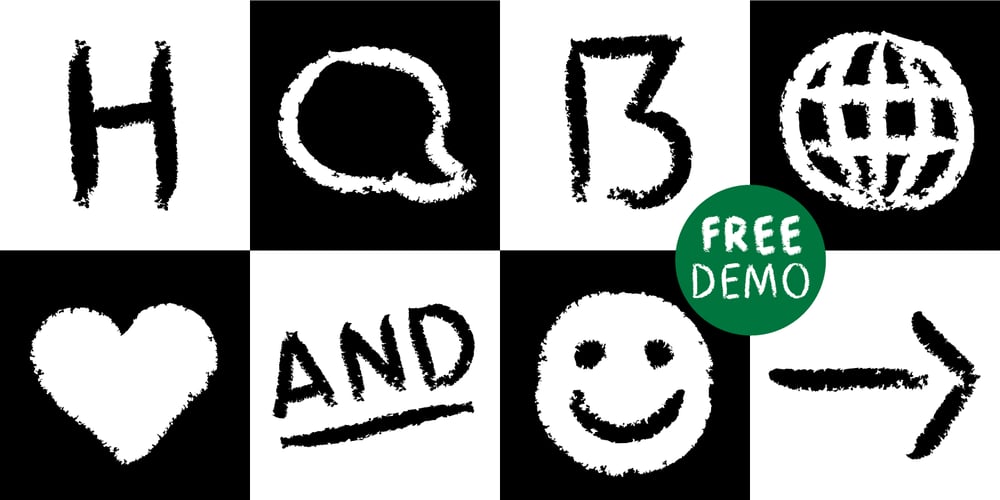
Chalk Hand Marker Font Family was designed by Manuel Viergutz and published by TypoGraphicDesign. Chalk Hand Marker contains 9 styles and family package options. The typeface Chalk Hand Marker is designed from 2019 for the font foundry Typo Graphic Design by Manuel Viergutz. The rough sans-serif display typeface with 4 font styles (Reg, Bold, Caps, Invert) is inspired by handwriting. 634 glyphs included plus 150+ decorative extras like icons, arrows, dingbats, emojis, symbols, geometric shapes, catchwords, decorative ligatures (type the word #LOVE for ❤️or #SMILE for